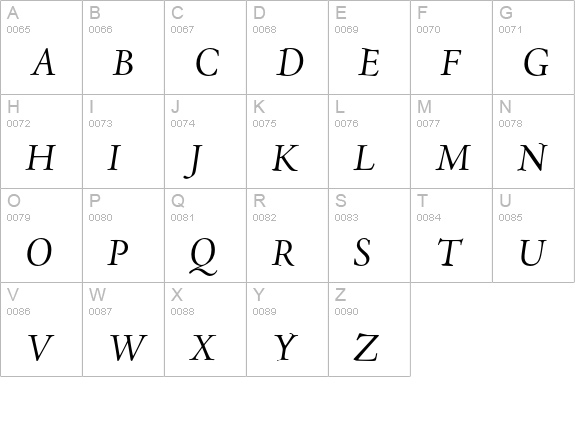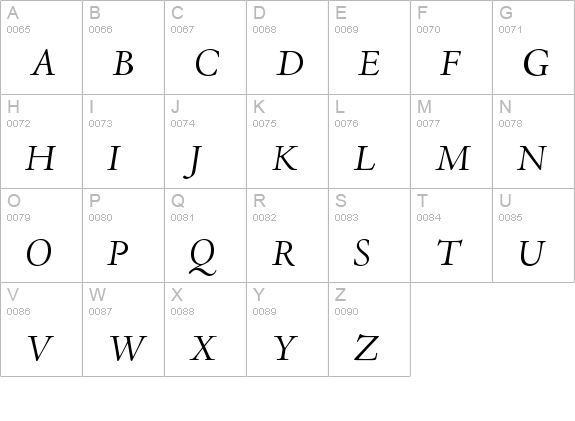
Adobe Jenson Pro Italic Subhead is a distinctive, italic variant in the Adobe typeface family \xE2\x80\x94 well suited to design and typography projects.
Adobe Jenson Pro Italic Subhead is a graceful and elegant font that exudes sophistication and style. With its slanted letterforms and delicate curves, this typeface adds a touch of refinement to any design project. Perfect for use in subheadings, titles, or any other text that requires emphasis, Adobe Jenson Pro Italic Subhead stands out as a versatile and timeless choice. What's even better is that this font is available for free download at FontsMarket.com. Now you can elevate your designs without any extra cost. Don't miss out on the opportunity to enhance your projects with the beauty and versatility of Adobe Jenson Pro Italic Subhead. Download it today and add a touch of class to your typography.